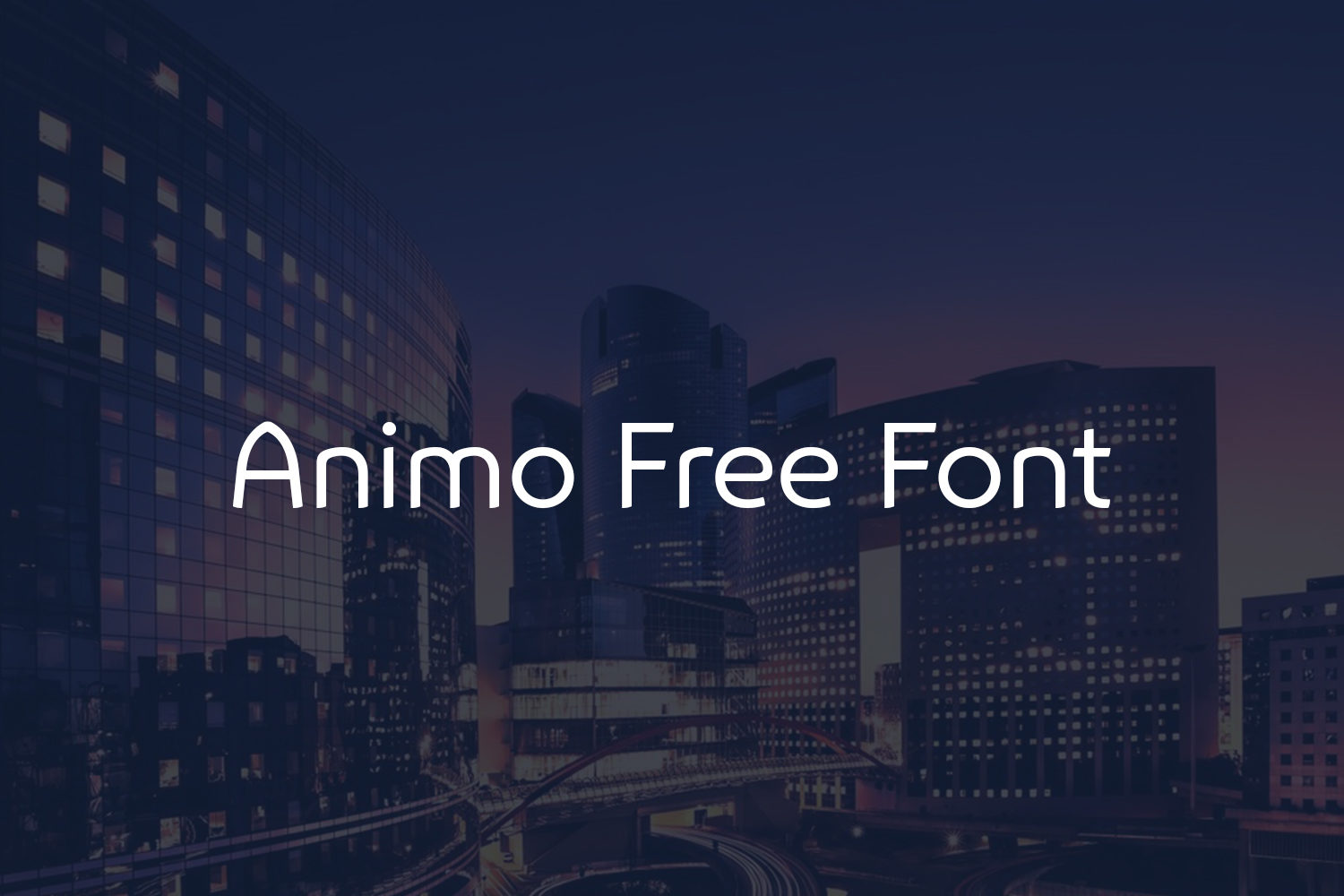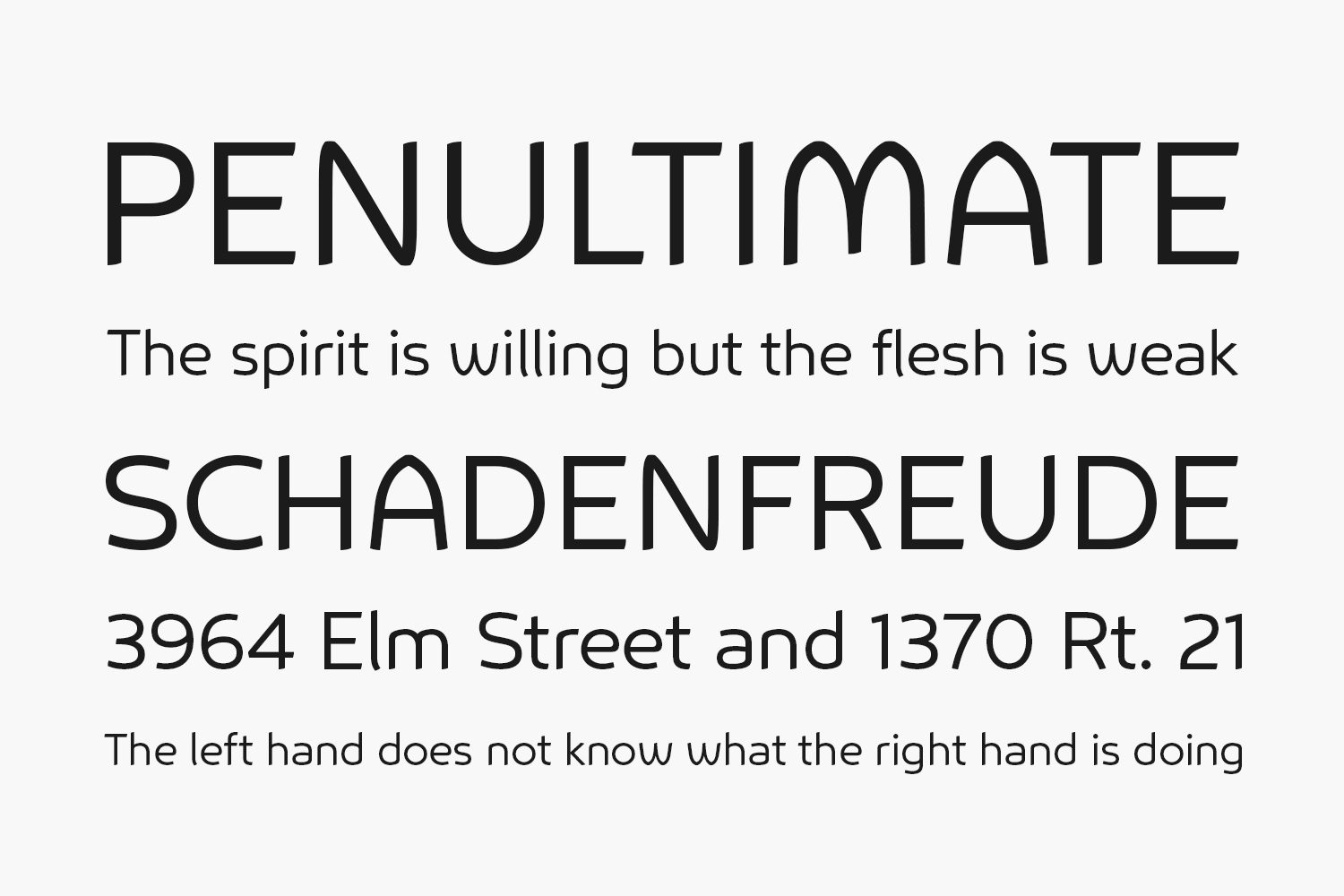
Animo Free Font is surprisingly legible for its outspoken personality and many of Animo’s small details were crafted to enhance its legibility while preserving its personality.